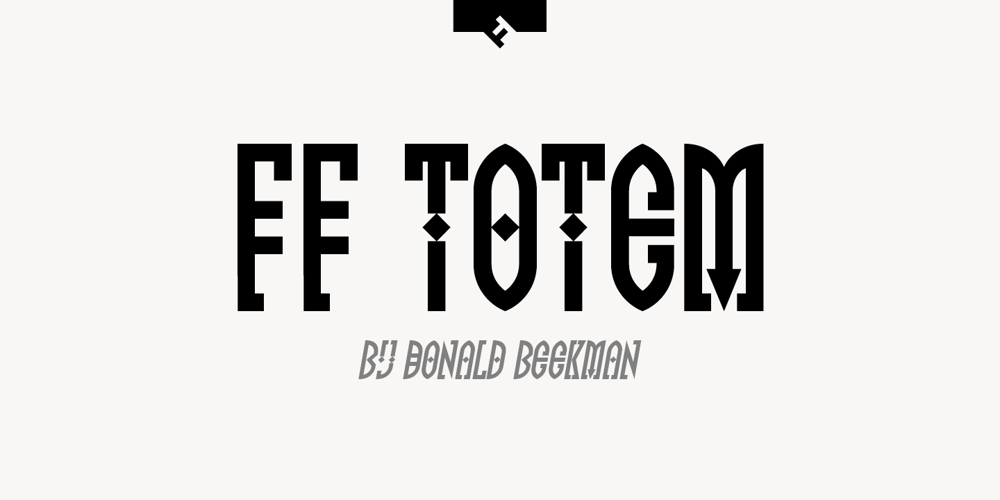
FF Totem Font Family was designed by Donald Beekman and published by FontFont. FF Totem contains 2 styles and family package options. Dutch type designer Donald Beekman created this display FontFont in 1999. The family contains 2 weights: Regular and Italic and is ideally suited for music and nightlife and poster and billboards. FF Totem provides advanced typographical support with features such as ligatures. It comes with proportional lining figures.